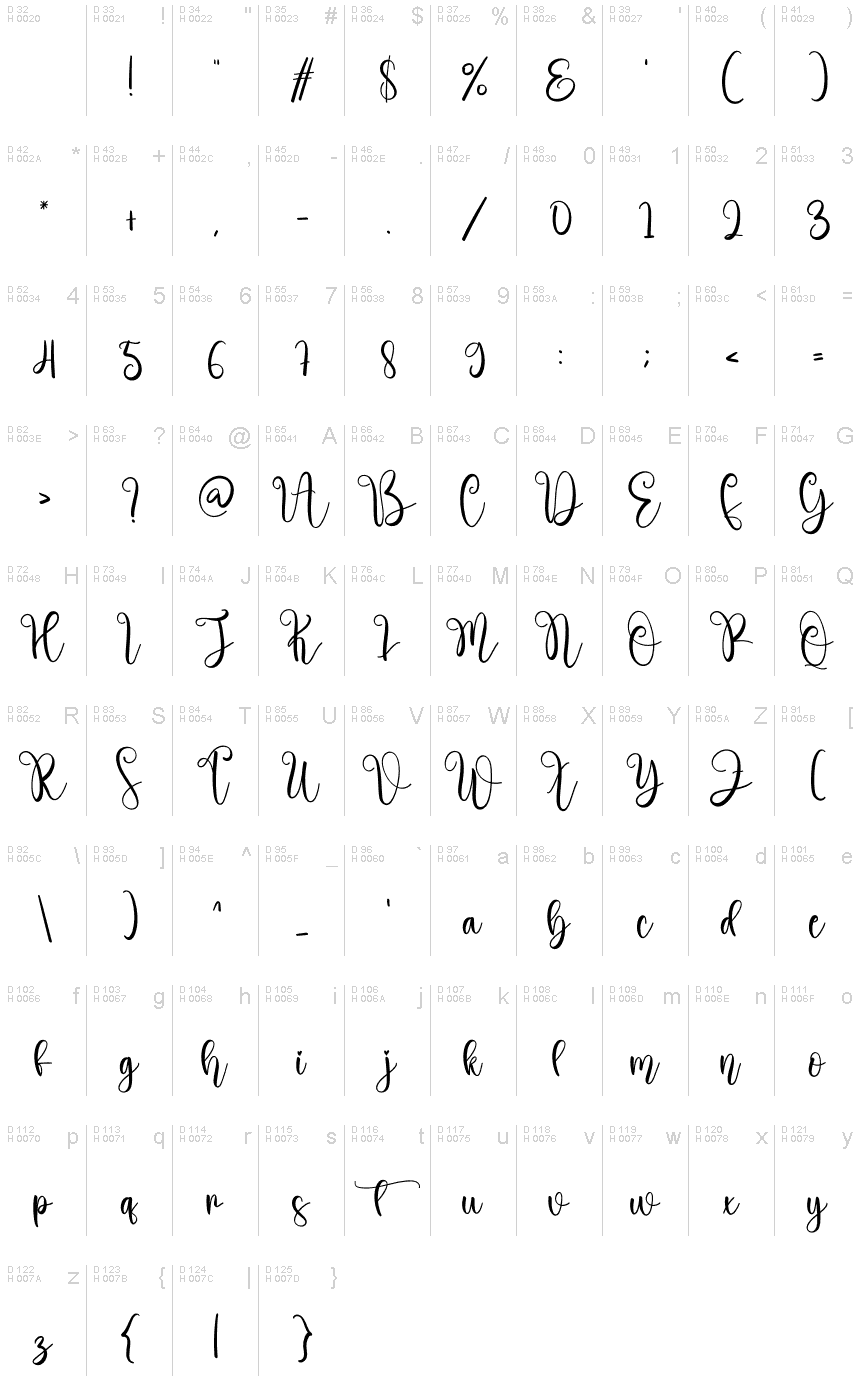
Pinkbird
Pinkbird is a stunning calligraphy font designed by scratchones. With its semi-light weight and graceful curves, Pinkbird is perfect for projects that require a touch of elegance and sophistication. This font typeface is ideal for wedding invitations, greeting cards, branding materials, fashion designs, and any other project that needs to convey a sense of beauty and femininity. Whether you're a graphic designer or just starting out in the world of typography, Pinkbird will bring your designs to life with its unique style and versatile use. Try it out today!
the latest style letters are perfect for wall displays, wedding invitations, social media post logos, advertisements, product packaging, product designs, labels, photography, watermarks, invitations, stationery, and any project that requires taste handwriting.